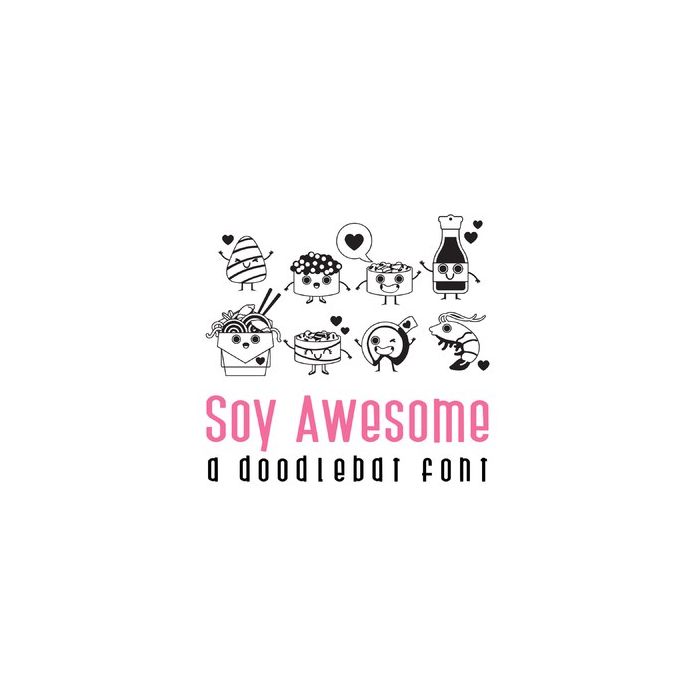
This fun doodlebat font features 36 sushi themed imagery and puns. Perfect for cards, gifts, decor, crafts, scrap book pages, planner stickers and more!